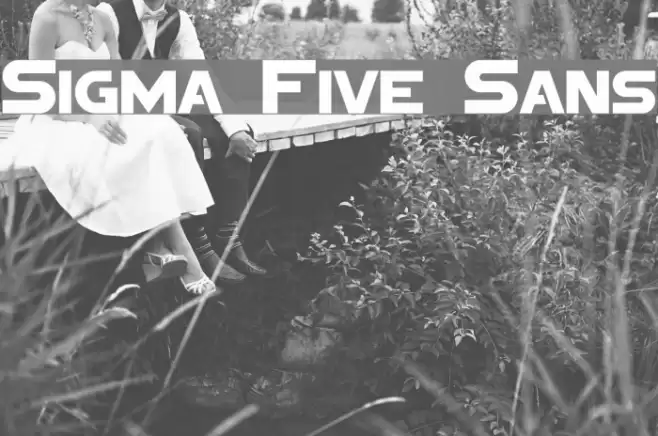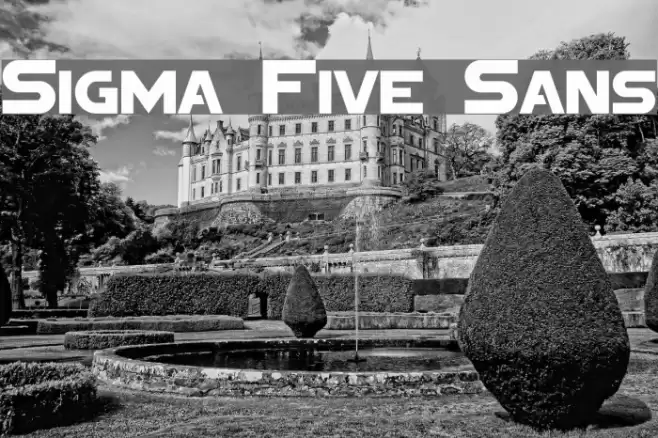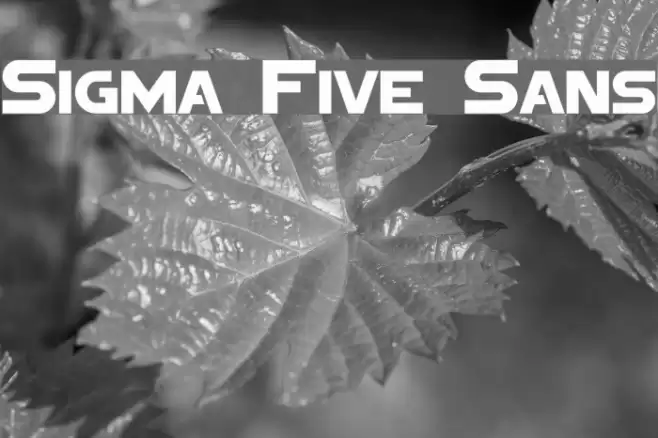
Sigma Five Sans Font
Sigma Five Sans Description
This font features a bold and modern design with a strong geometric structure. The characters are crafted with a uniform stroke width, giving it a clean and robust appearance. The uppercase letters are particularly striking, with sharp angles and a futuristic feel. The numbers and special characters maintain the same boldness, ensuring consistency across all glyphs. This font is highly legible and makes a strong visual impact, suitable for various design applications where a contemporary and assertive look is desired.
A bold, geometric font with a modern and futuristic style from Uncategorized fonts.